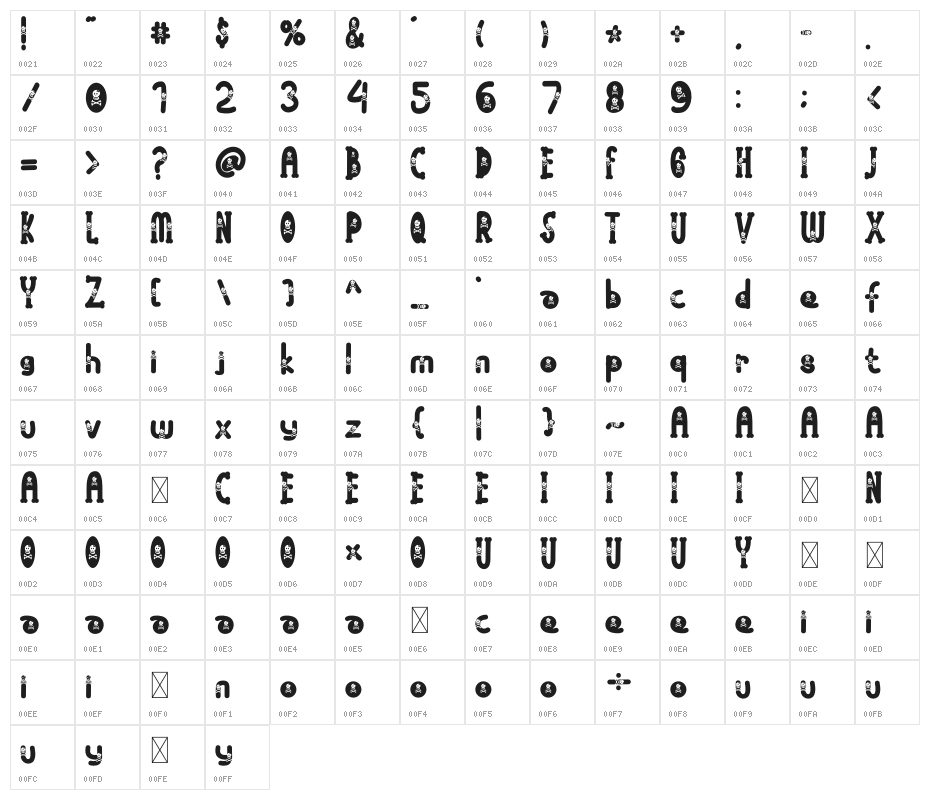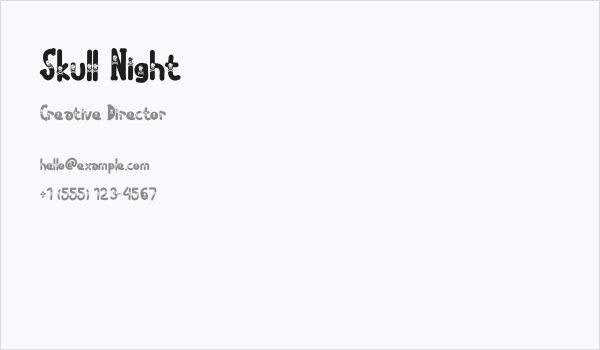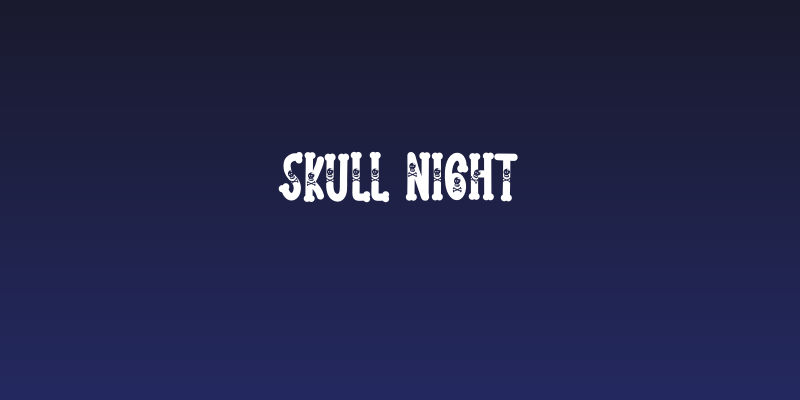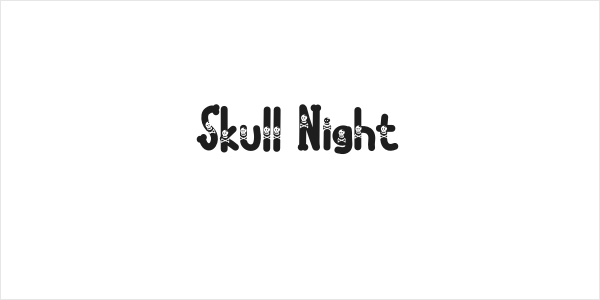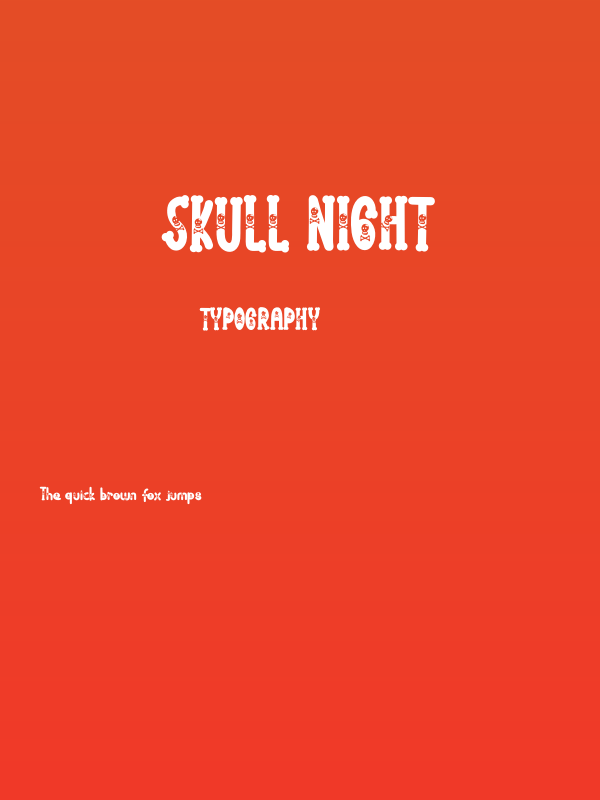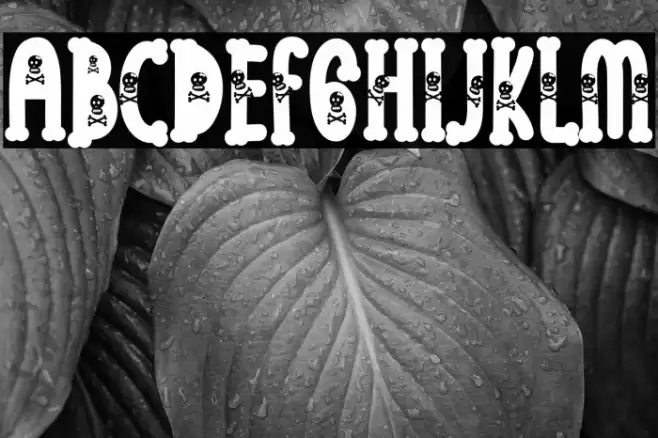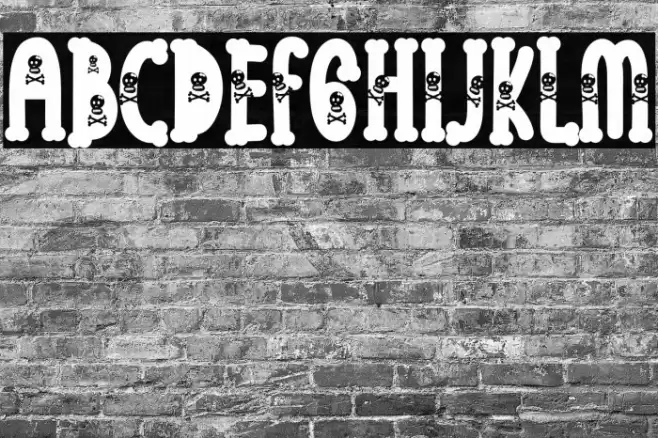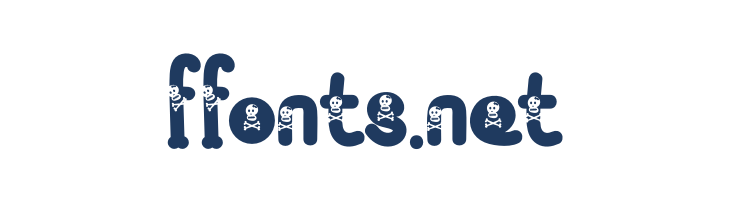
Skull Night Font
Skull Night Description
This playful and bold font features a unique design where each character is adorned with a skull and crossbones motif. The letters are thick and rounded, giving a cartoonish and whimsical appearance. The skulls are integrated into the strokes of the letters, adding a decorative and thematic element that is consistent across uppercase, lowercase, numbers, and special characters. This font is perfect for projects that require a fun, pirate-themed, or Halloween-inspired look. Its distinct style makes it stand out, ensuring that any text set in this font will capture attention.
| Use Case | Headlines, Logos, Themed Event Materials |
| Proposed Projects | Ideal for Halloween invitations, pirate-themed events, children's party decorations, or any project needing a whimsical and spooky touch. |